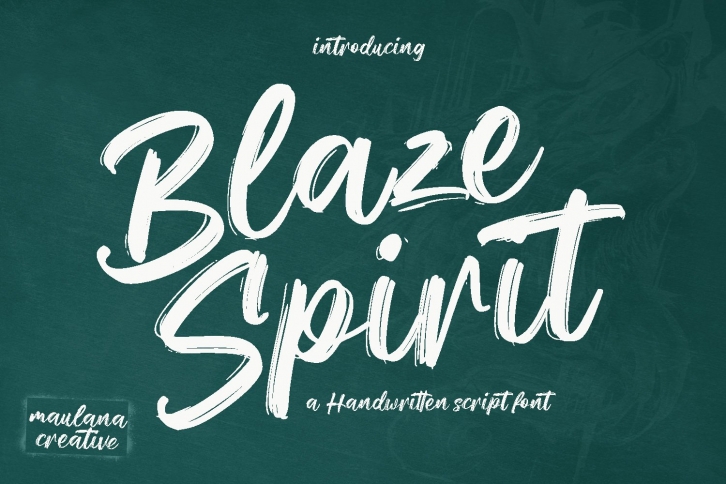
Blaze Spirit Brush Script is a trendy and unique font with an authentic style. It was designed by Maulana Creative and it's a great choice for creative people who need such a font. It was released on May 6, 2022 and the file size is 7.77 MB. Blaze Spirit Brush Script will add an organic vibe to any design idea!